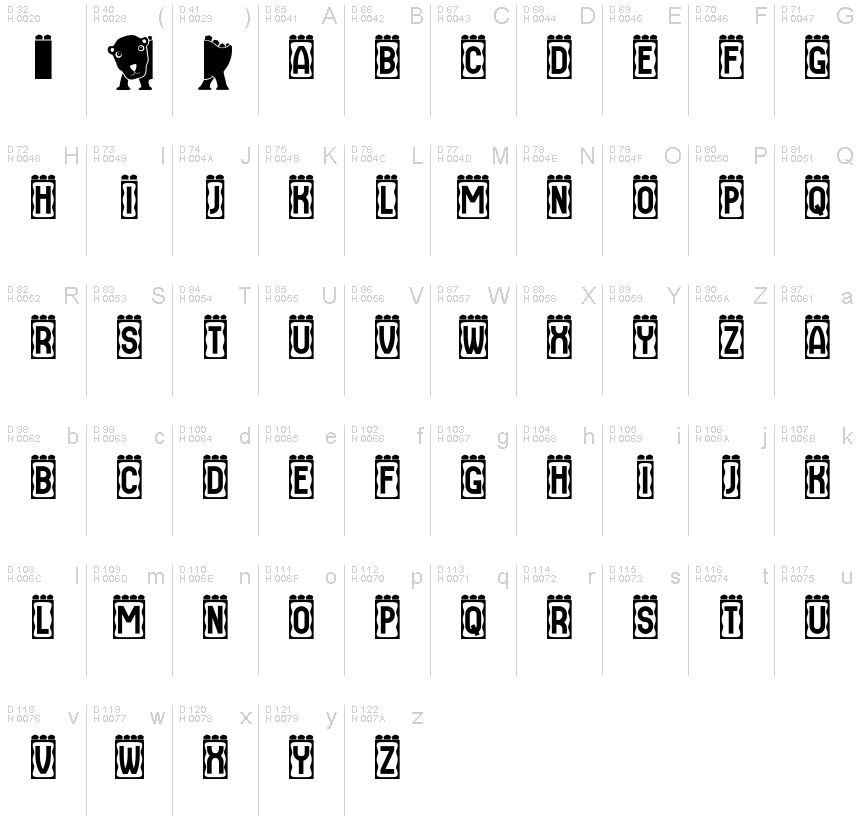
Perut Regular
Perut, a captivating display font crafted by designer Vladimir Nikolic, exudes a bold and captivating presence. With its distinctive, exaggerated letterforms and dramatic flair, this font commands attention and leaves a lasting impression. The condensed width of Perut lends an air of sophistication and elegance, perfectly suited for headline text, logotypes, and other high-impact design elements.
Perut's decorative style, with its intricate flourishes and ornamental details, makes it an ideal choice for projects seeking to evoke a sense of grandeur, elegance, or a touch of nostalgia. From editorial layouts to product branding, this font has the versatility to elevate a wide range of design applications, infusing them with a unique and memorable aesthetic.